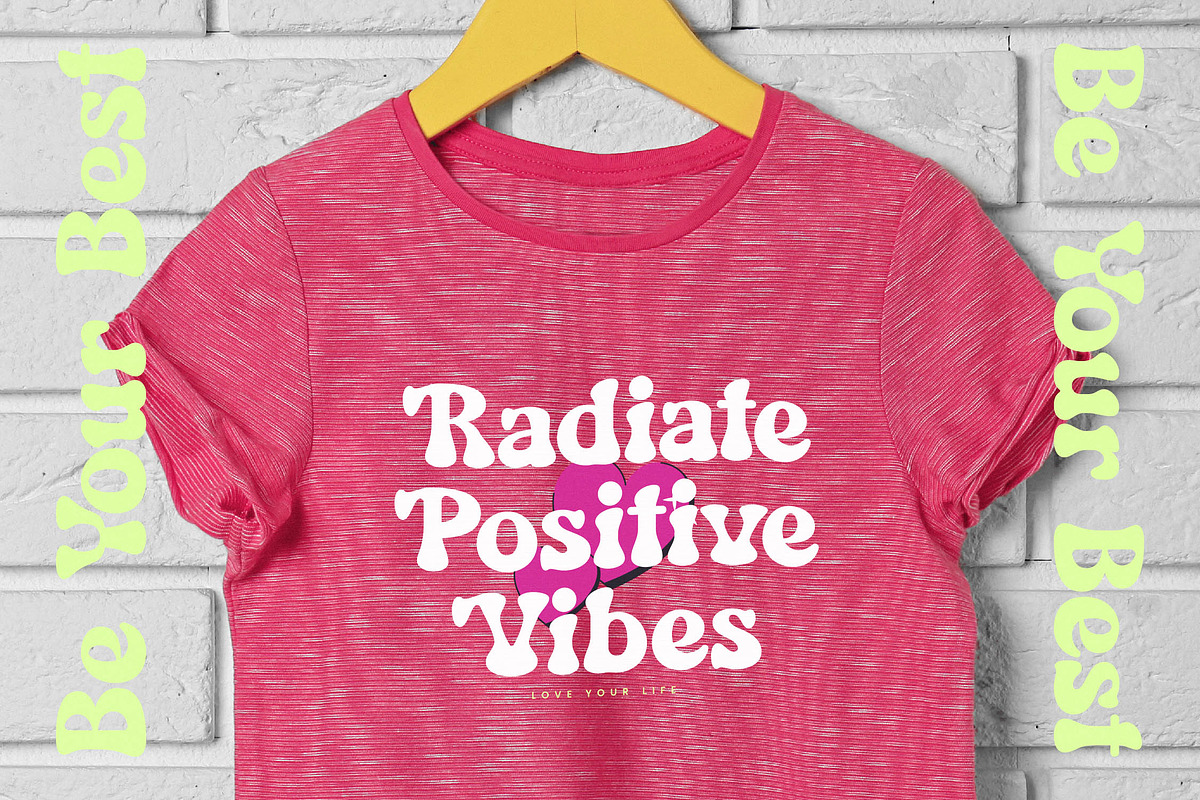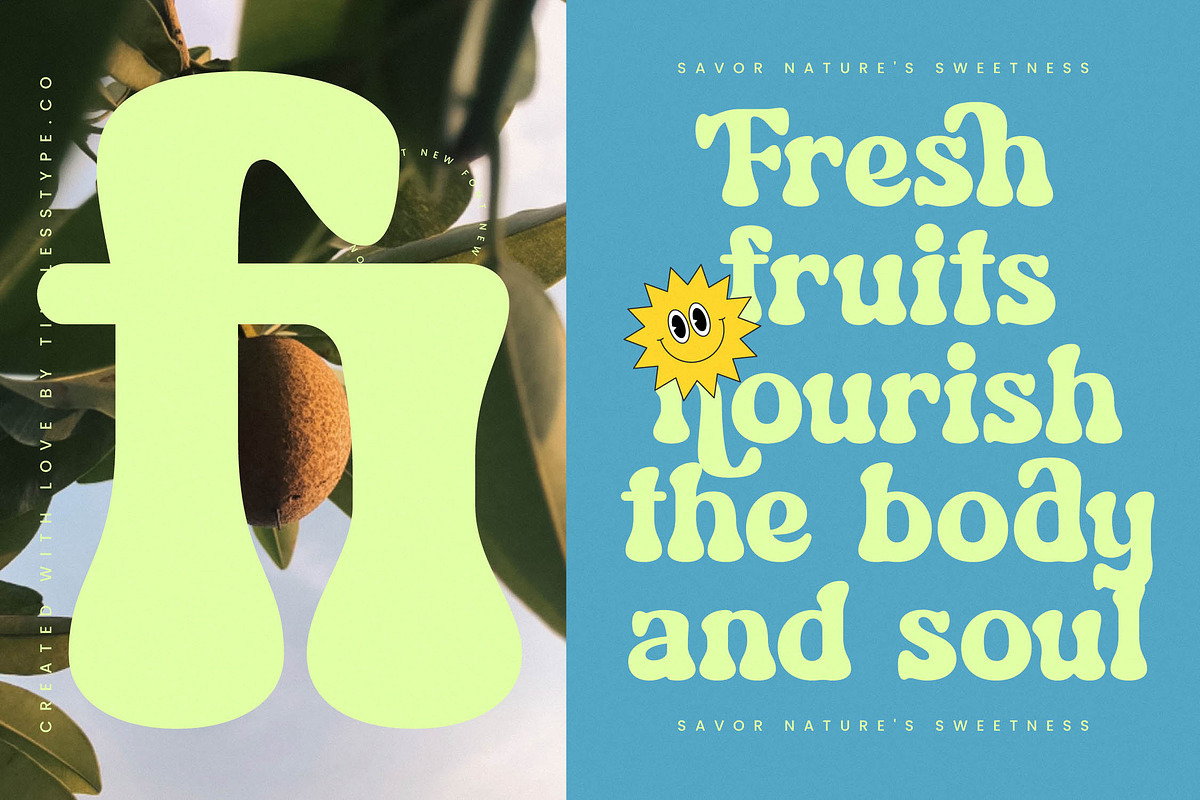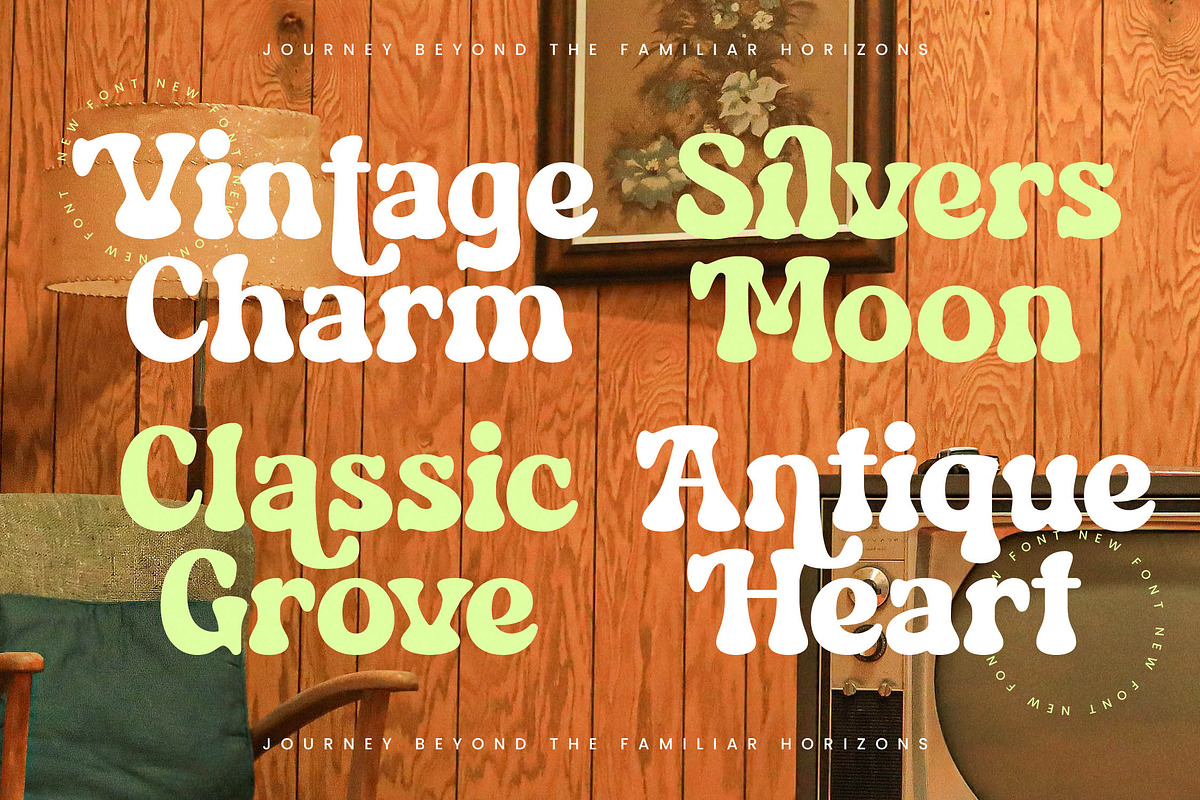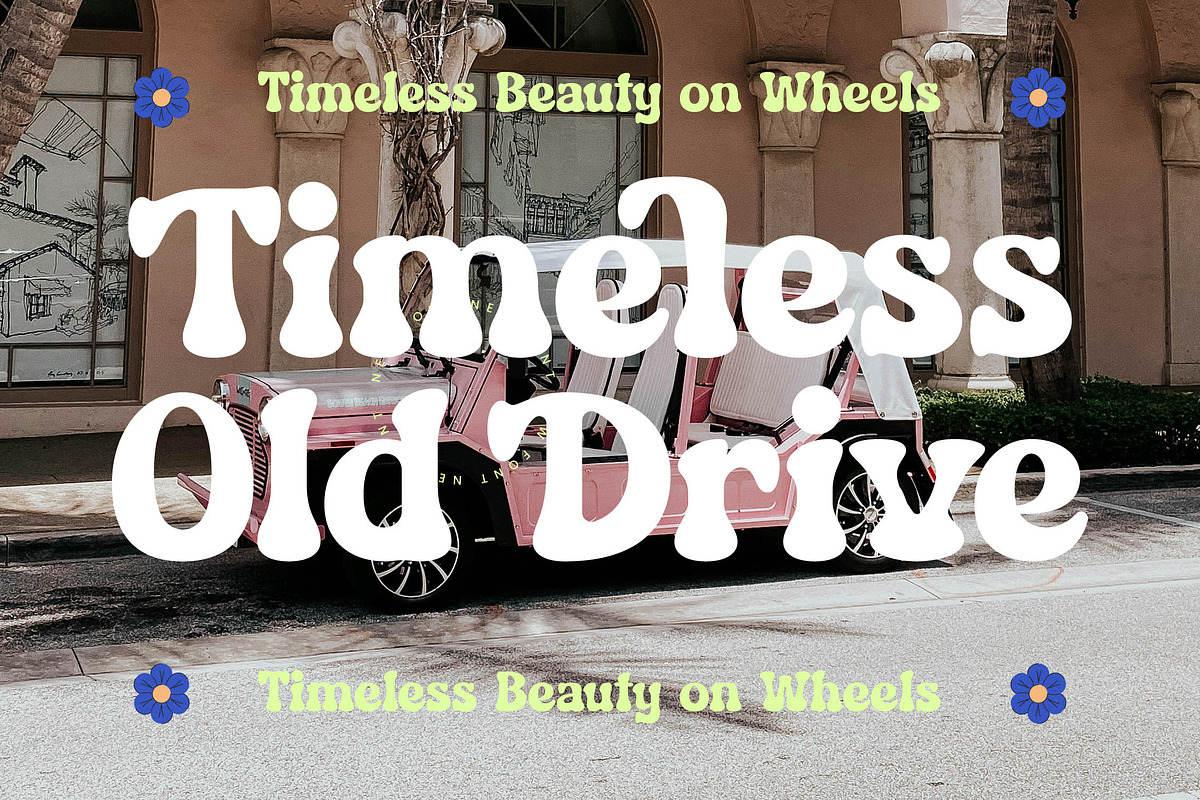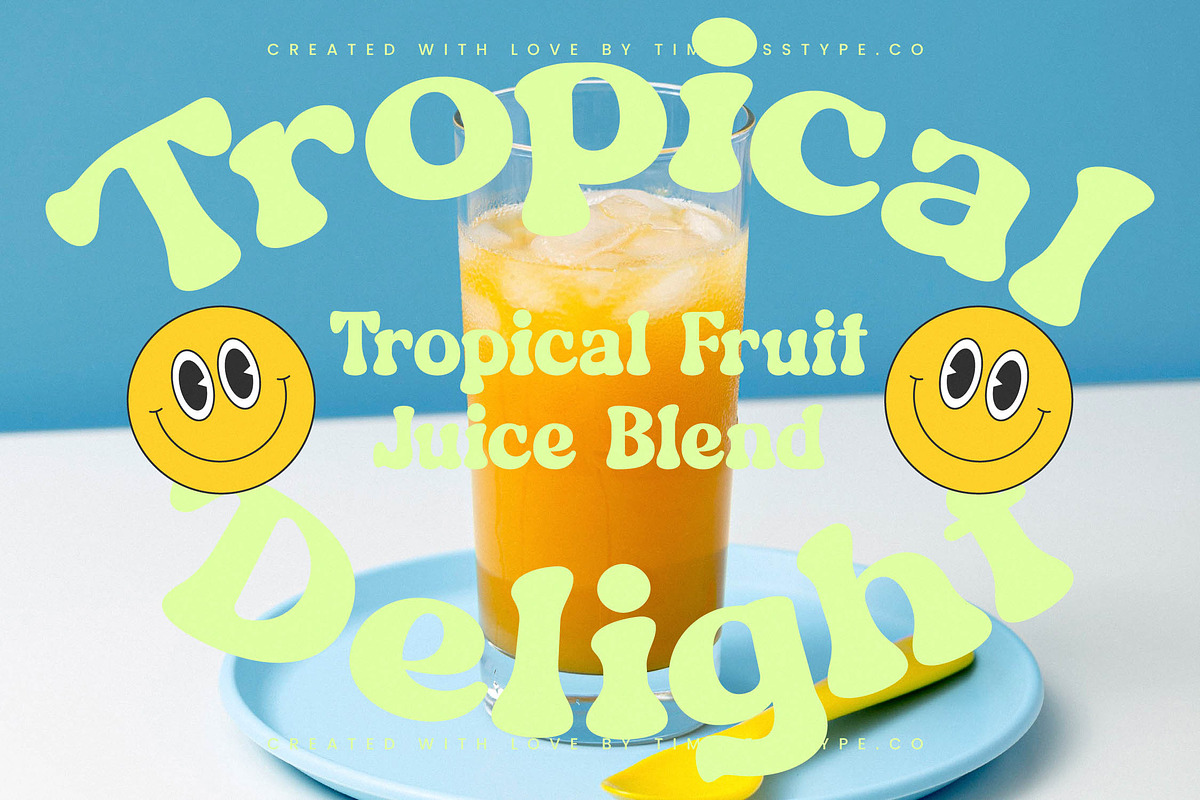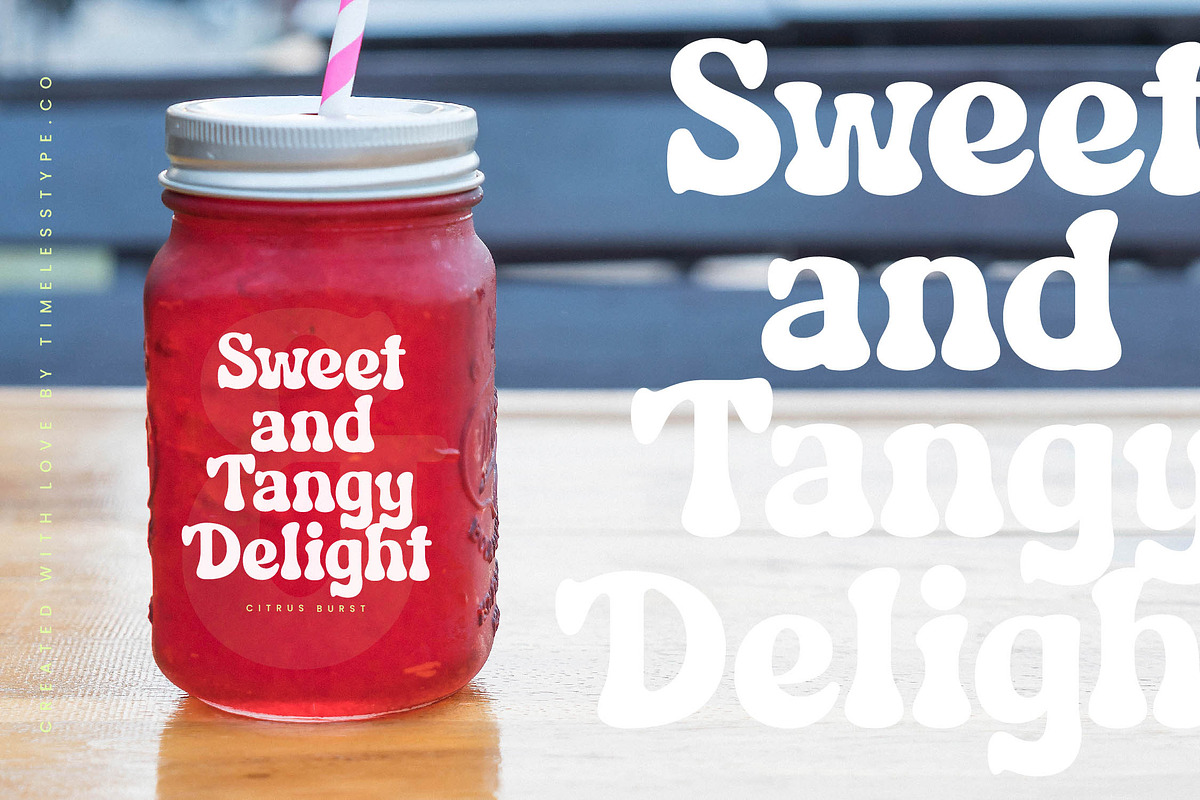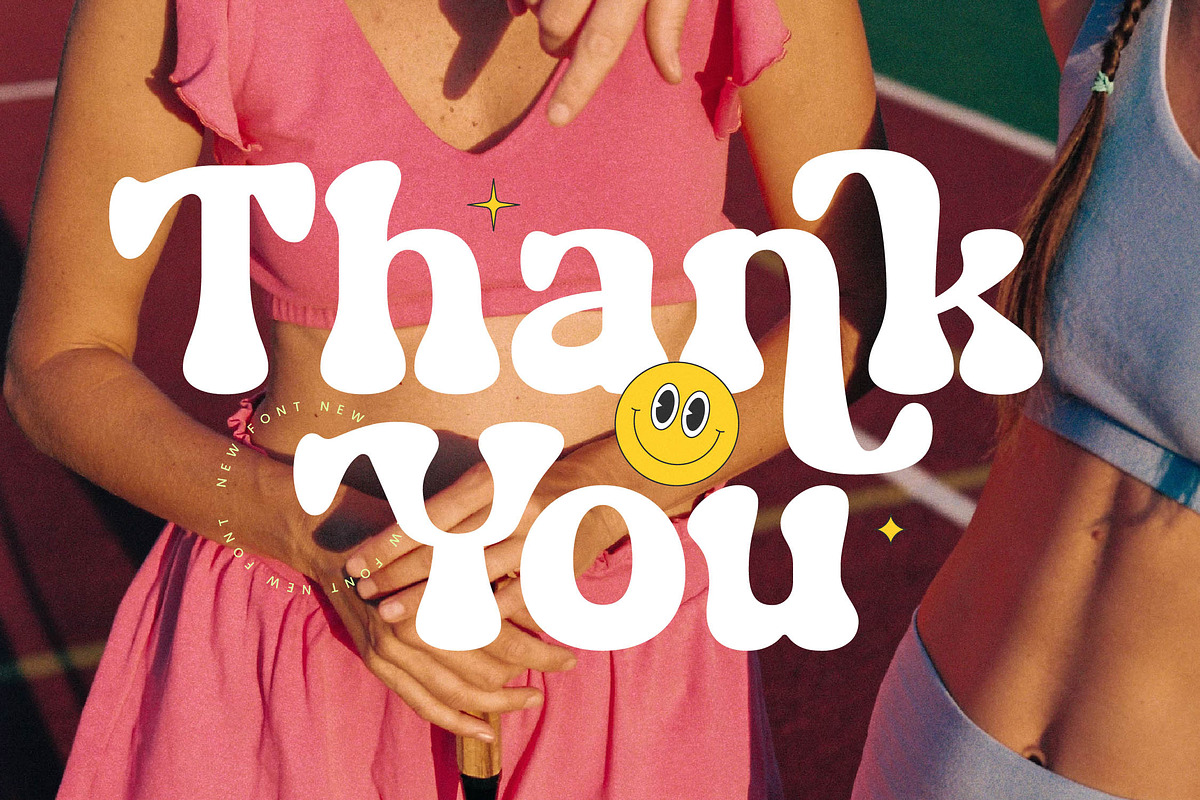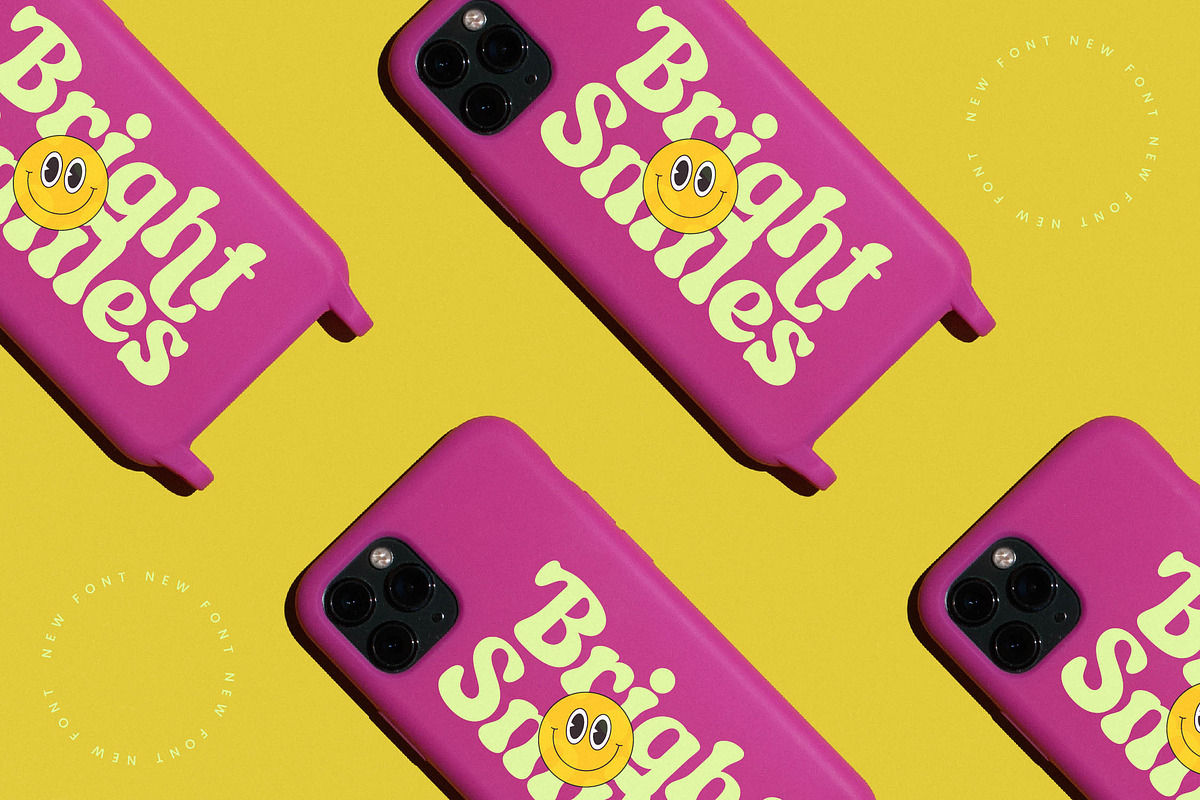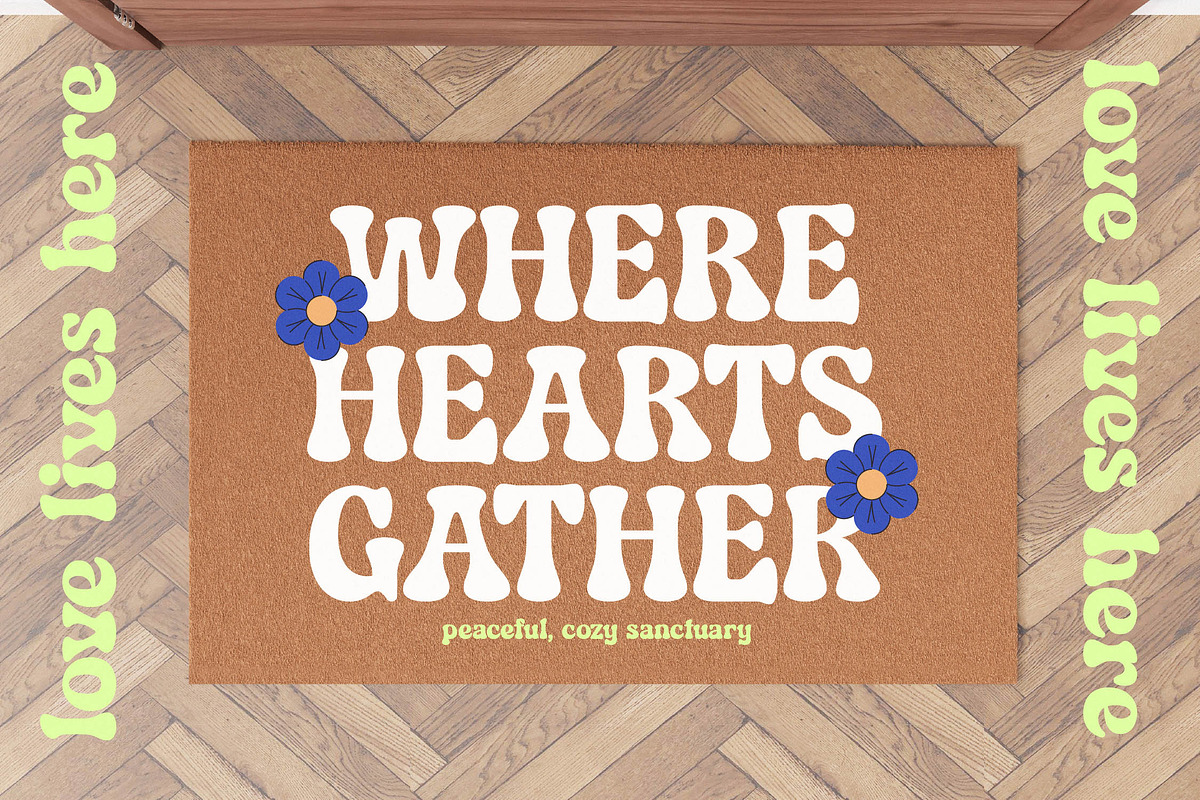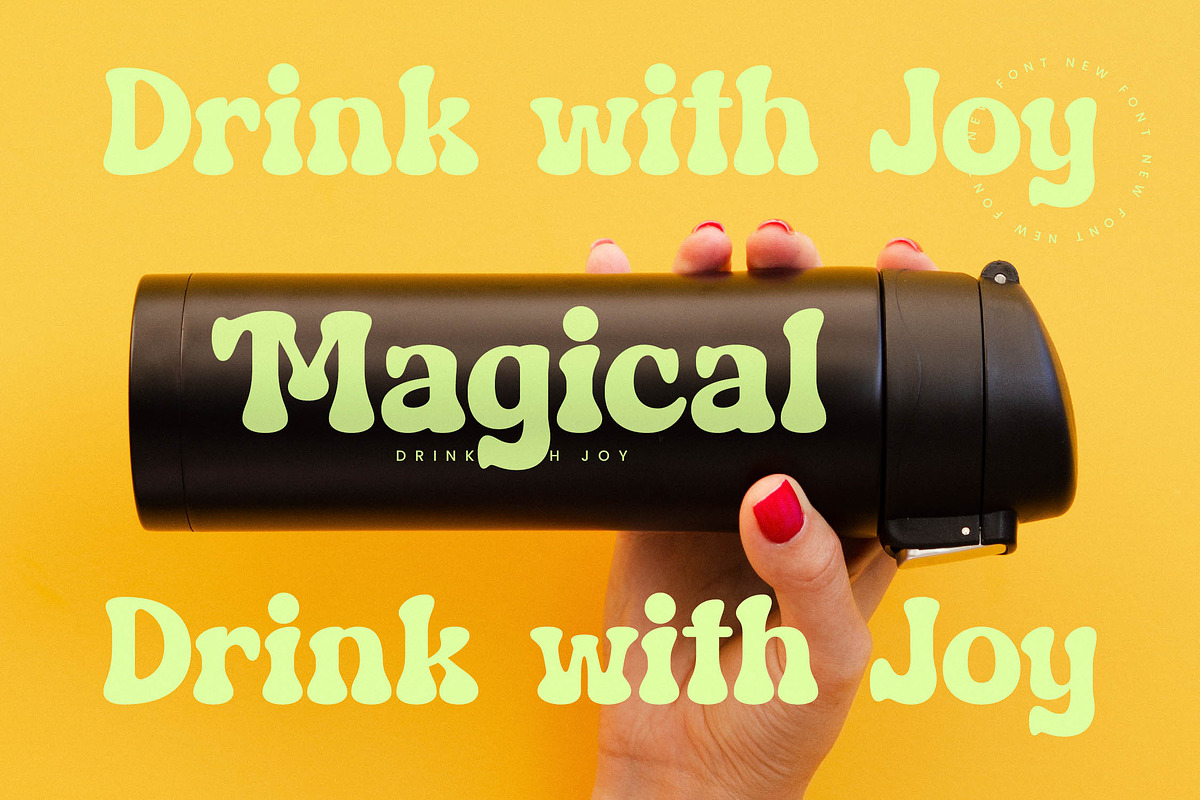
History Wonder Modern Retro Serif
Experience the vibrant soul of vintage aesthetics with History Wonder, a typeface designed to infuse your creative projects with an unmistakable sense of joy. It captures the essence of classic design while pushing the boundaries of contemporary style and digital expression.
Inspired by the sun-soaked tennis courts and bold graphic posters of the 1970s, this font evokes a sense of nostalgic charm and athletic energy. It reflects a world where design was fearless, curves were generous, and every letterform told a story of freedom and wonder.
This modern serif display offers a perfect blend of whimsy and luxury typography, making it an ideal choice for creators seeking a significant branding impact. Its high-contrast serif structure provides the legibility of an editorial font with the personality of a custom hand-lettered piece.
As the modern serif trend continues to dominate the creative landscape, this typeface stands out among editorial display fonts for its unique rhythm. It delivers character-driven typography that meets the demands of high-end design while maintaining a playful, approachable, and trendy spirit.
Optimized for high-impact visual communication, it is the perfect tool for logo design, holistic branding projects, and sophisticated editorial layouts. Its versatile nature also makes it a standout choice for high-fashion packaging, bespoke wedding invitations, and bold fashion lookbooks.
Beyond its striking appearance, the font includes a comprehensive set of ligatures and alternates to ensure complete creative control over every word. Users also benefit from decorative swashes, full multilingual support, and a wide range of international characters for seamless global versatility.